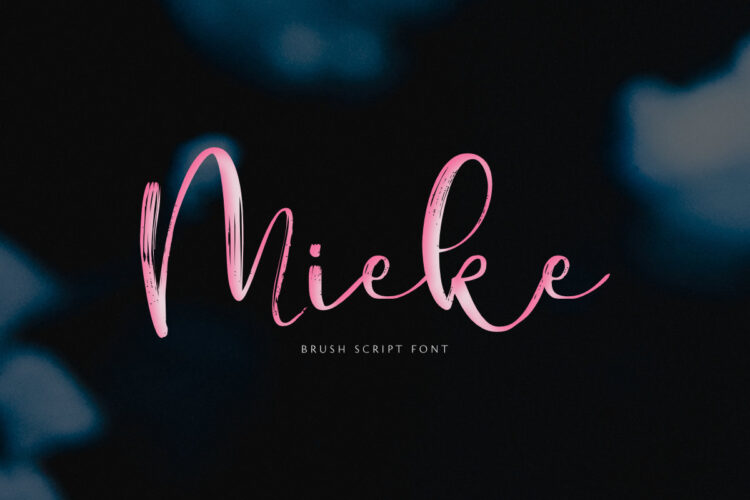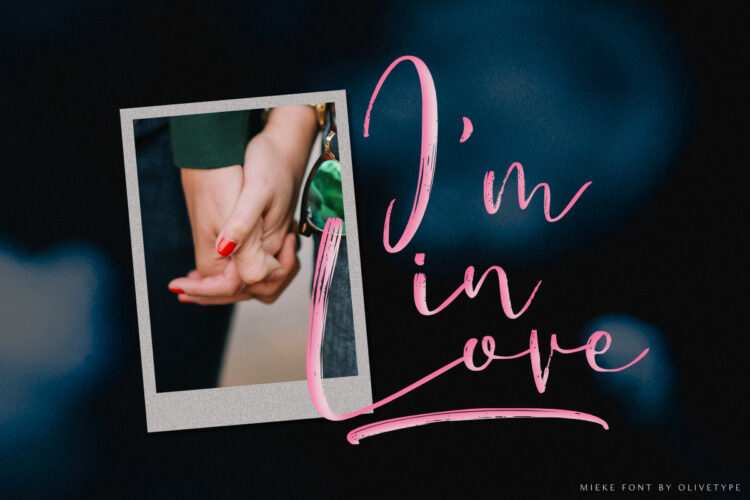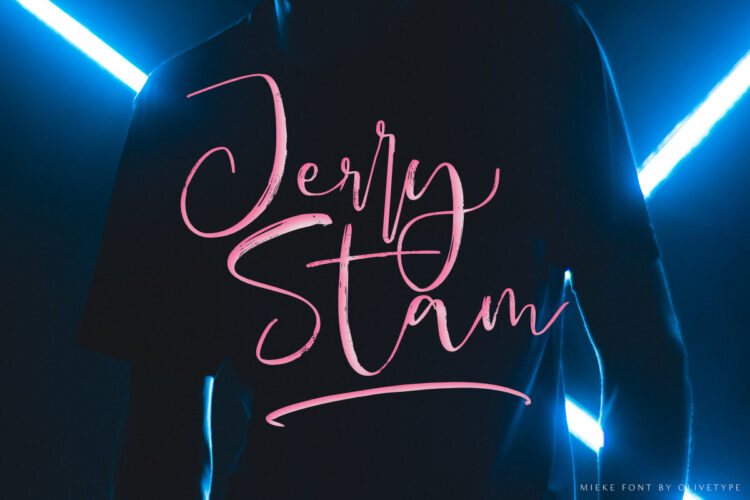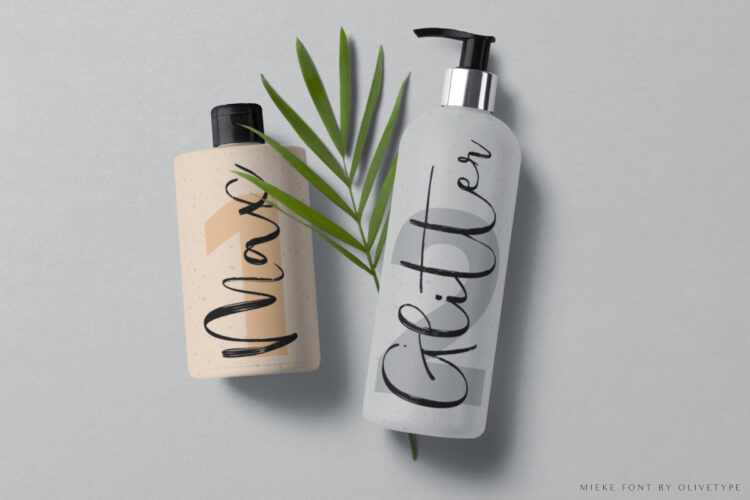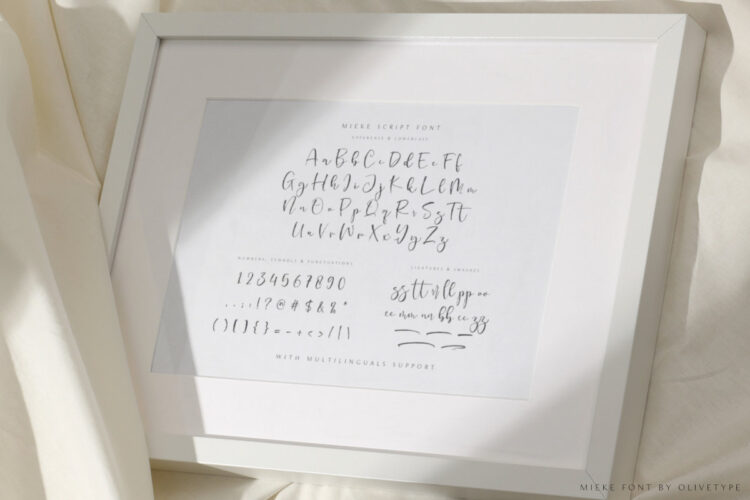
Mieke is a dry brush handwritten script font. Very cool if use for posters, logos, headlines, branding, etc.
- Basic Latin A-Z & a-z
- Ligatures and swashes